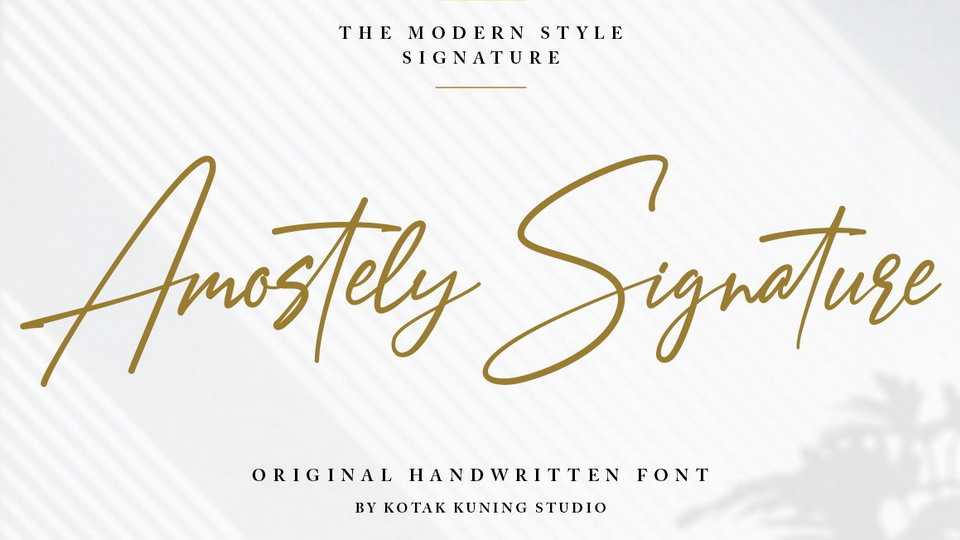
Download Amostely Signature font, a handwritten signature script with a natural & stylish flow. This font has a multitude of natural looking ligatures in its OpenType features – making the font look as close to natural handwriting as possible.
Designer: Kotak Kuning